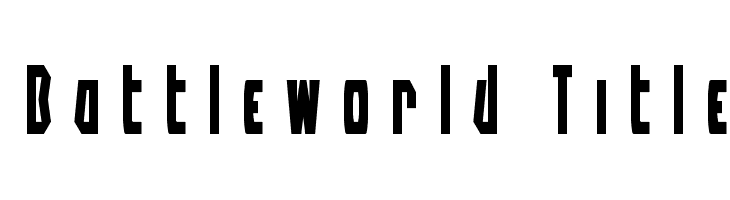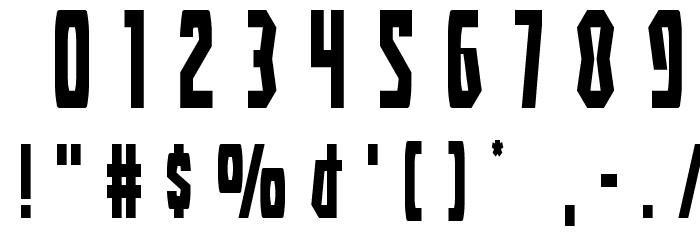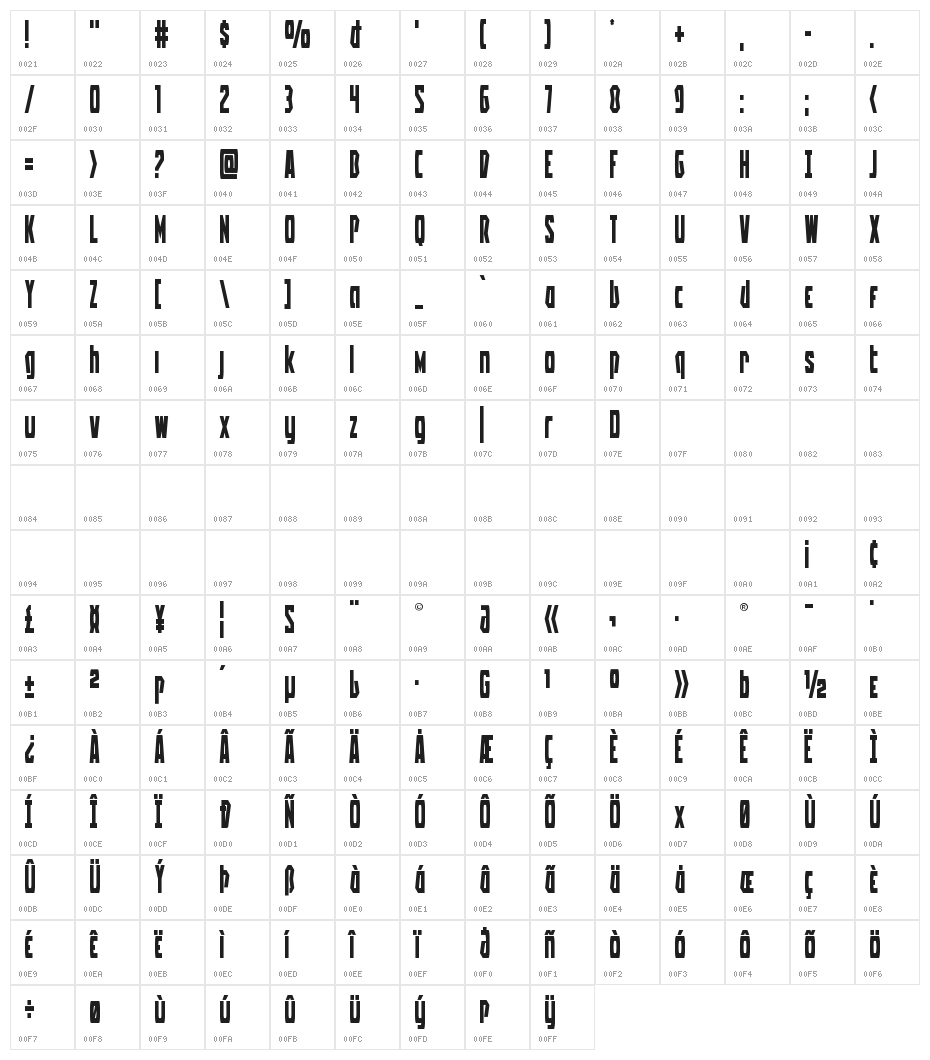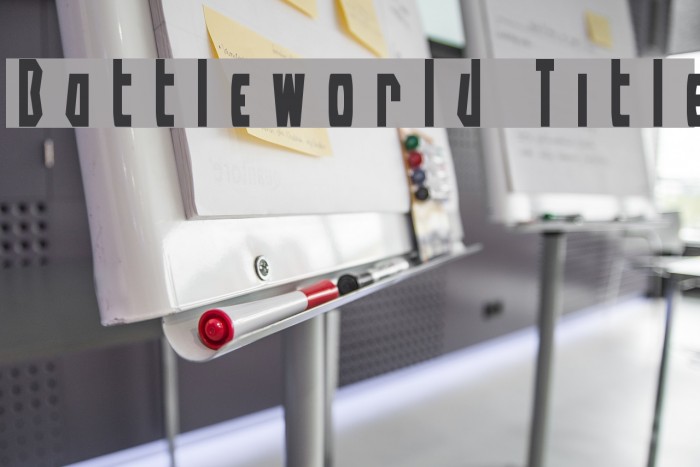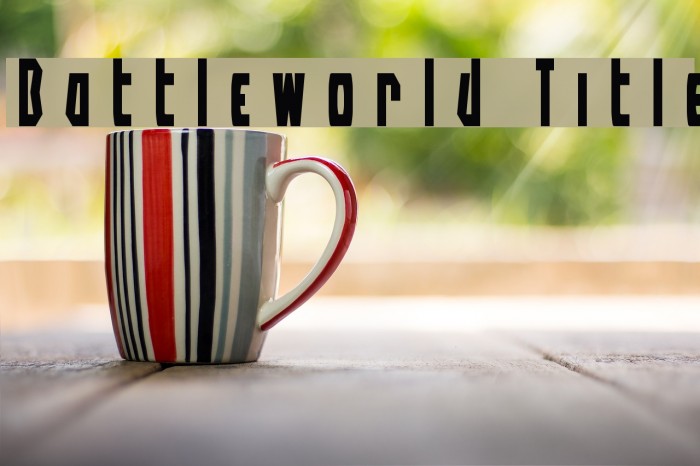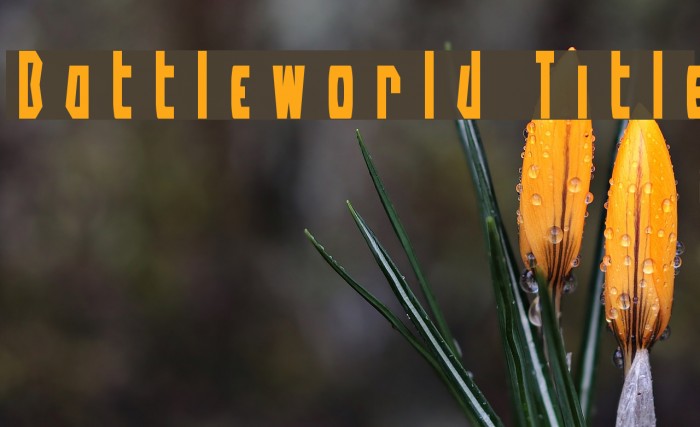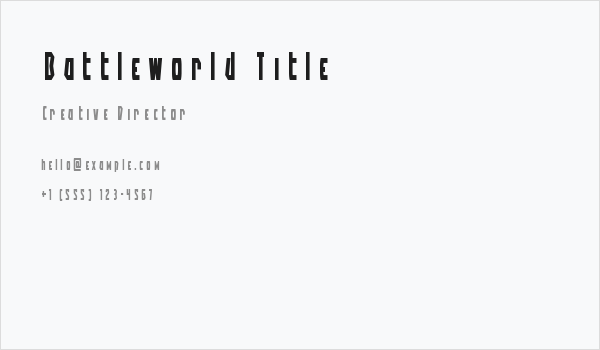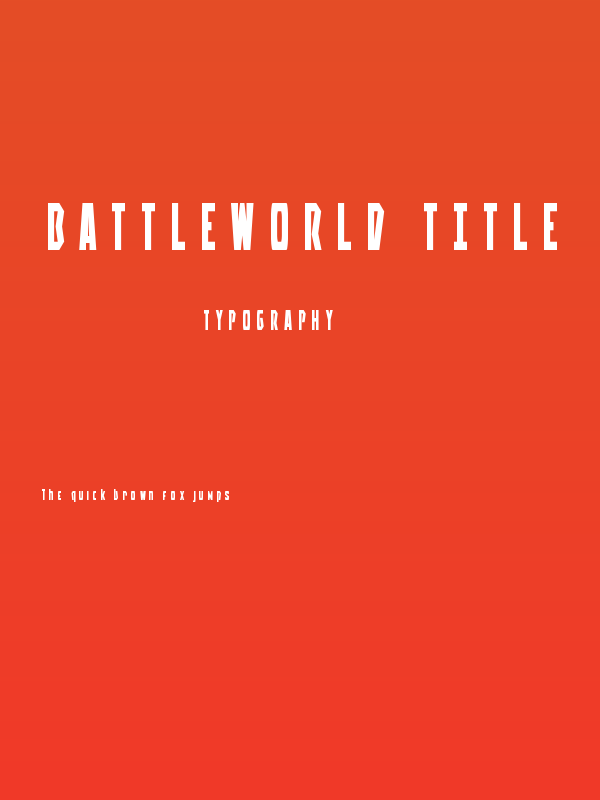
Battleworld Title Font
Battleworld Title Description
This font features a bold and angular design with a futuristic and aggressive aesthetic. The characters are sharply defined with a geometric style, giving them a strong and impactful presence. The uppercase and lowercase letters maintain a consistent angular theme, while the numerals and special characters complement the overall design with similar sharp edges. The font's unique style makes it stand out, making it suitable for projects that require a bold and modern look.
| Overall Style | Futuristic, Modern |
| Proposed Projects | Ideal for video game titles, sci-fi movie posters, branding for tech companies, and any project needing a modern, edgy look. |